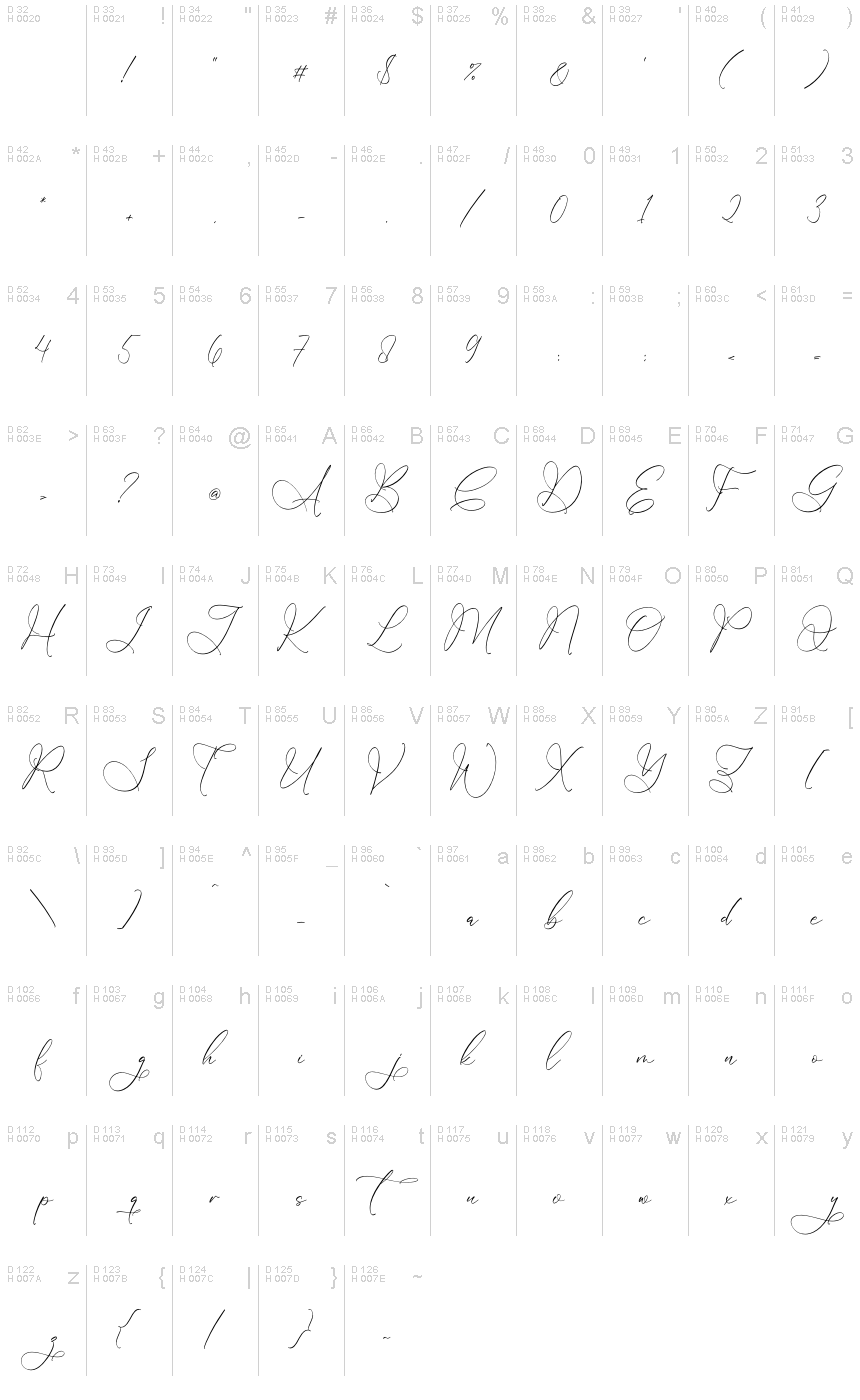
Bolchanitas Voligate
Bolchanitas Voligate, a captivating calligraphic font crafted by Storytype Studio, exudes elegance and grace. The light, flowing strokes effortlessly dance across the page, creating a sense of movement and fluidity that captivates the eye. The delicate, yet decisive lines convey a sense of artistry and sophistication, making this font a true delight to behold.
Bolchanitas Voligate's versatility shines through, making it a suitable choice for a wide range of design applications. From high-end editorial layouts to luxury brand identities, this font's distinctive character and refined aesthetic lend themselves beautifully to projects that demand a touch of refinement and elegance.